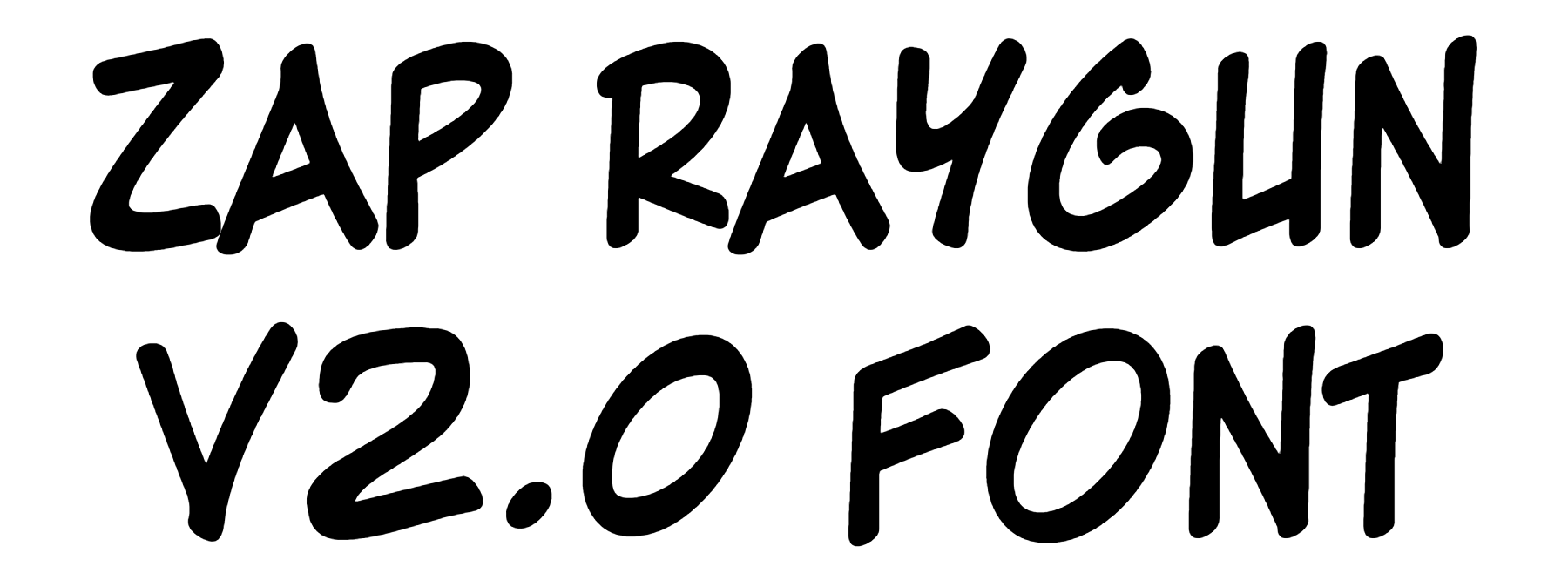
Zap Raygun V2.0
Zap Raygun V2.0 is a handwritten font (2001). It has a casual, written-with-a-pen look that makes designs feel personal. You can download it for free and test it with your own words in the preview above.
- Year: 2001 (from the copyright line in the font)
- Glyphs: 117
What You Can Type With Zap Raygun V2.0
Zap Raygun V2.0 covers the full alphabet in upper and lowercase, plus all ten numbers, so you can set names, dates and prices without switching fonts. Everyday marks like &, !, ? and @ are there too. It has 4 accented letters, but not the full set for Spanish or French, so test any non-English words first.
Where Zap Raygun V2.0 Works Best
Zap Raygun V2.0 is a natural fit for greeting cards, journal pages and friendly social posts. Set it a bit larger than you would a normal text font. Handwriting styles lose their charm once they get too small to read comfortably.
Does Zap Raygun V2.0 support accented letters?
Partly. Zap Raygun V2.0 has 4 accented letters, but not the complete set for Spanish, French or German. Type your words in the preview above to check before you use it.